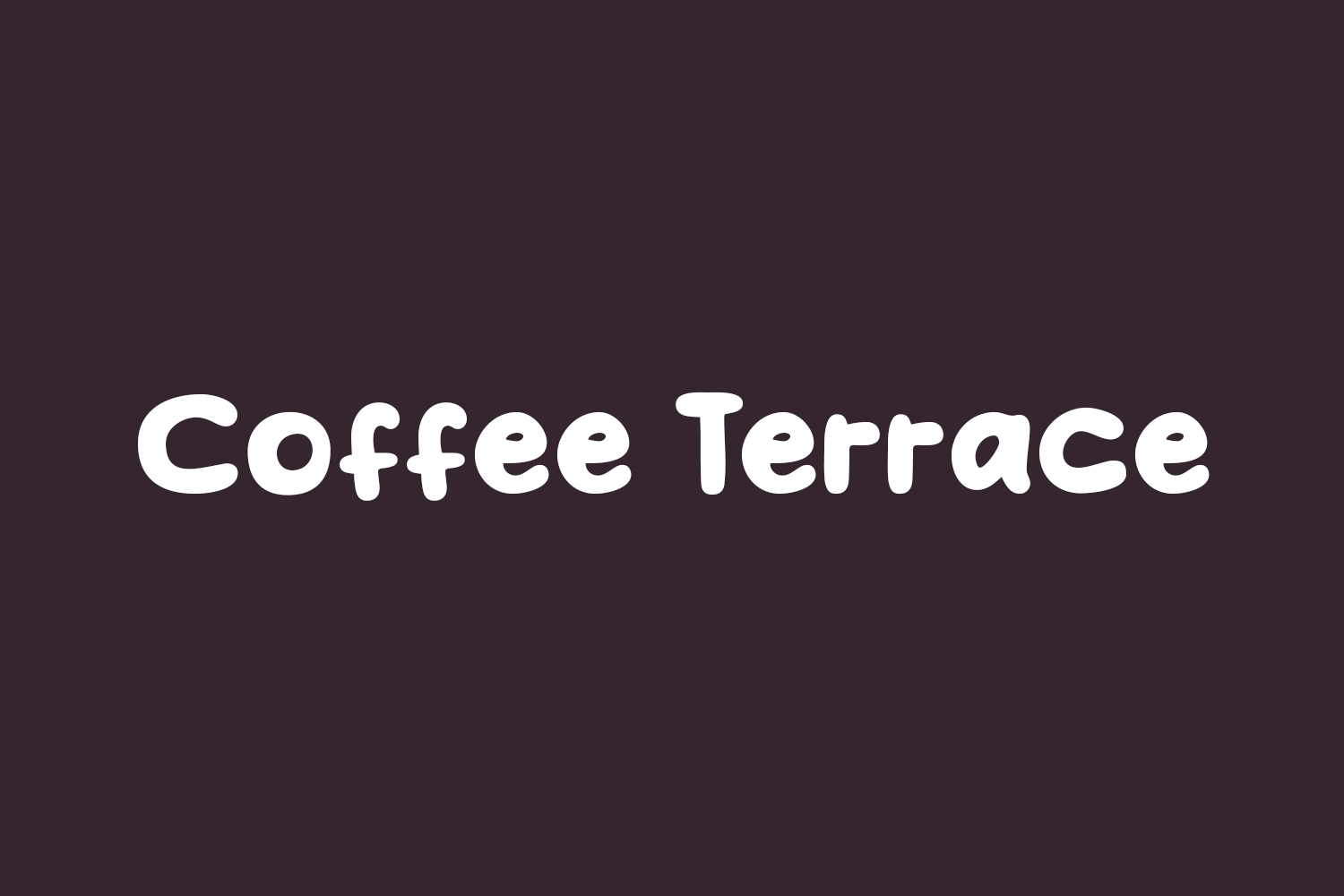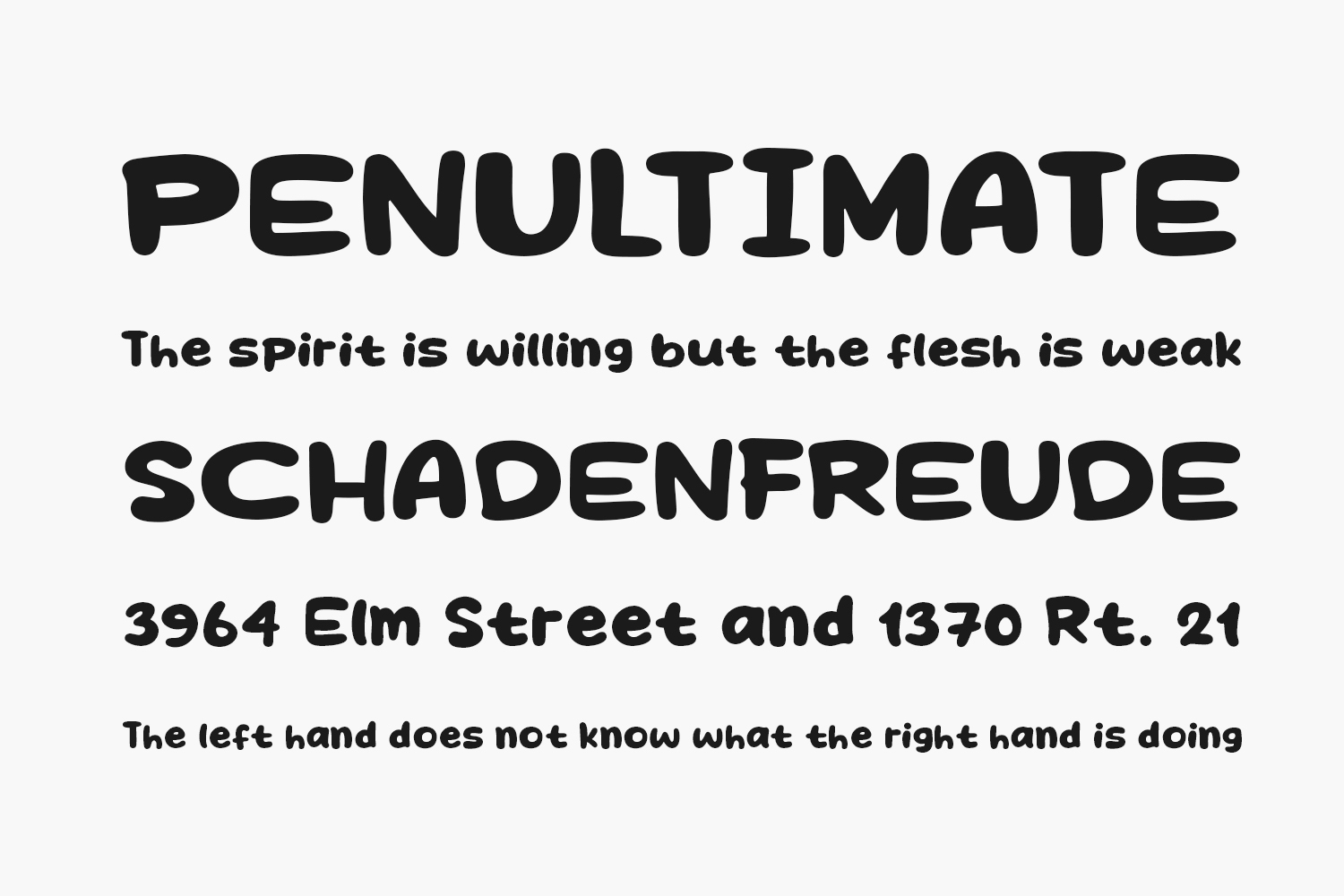
Coffee Terrace Free Font is a sophisticated and stylish display font that is ideal for various design applications such as posters, logos, magazines, book covers, banners, and more. Elevate your designs with this exceptional font and experience its captivating appeal. Its versatility allows seamless integration into a wide range of projects, allowing your creative ideas to flourish and truly shine. Unlock the potential of this remarkable font and witness how it effortlessly enhances and distinguishes your designs. Don’t miss the opportunity to acquire this incredible font and take your creations to the next level. Coffee Terrace Free Font is free for personal or commercial use.